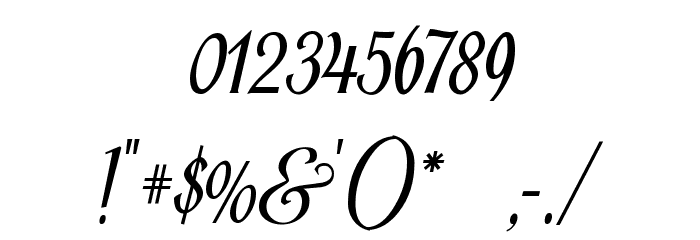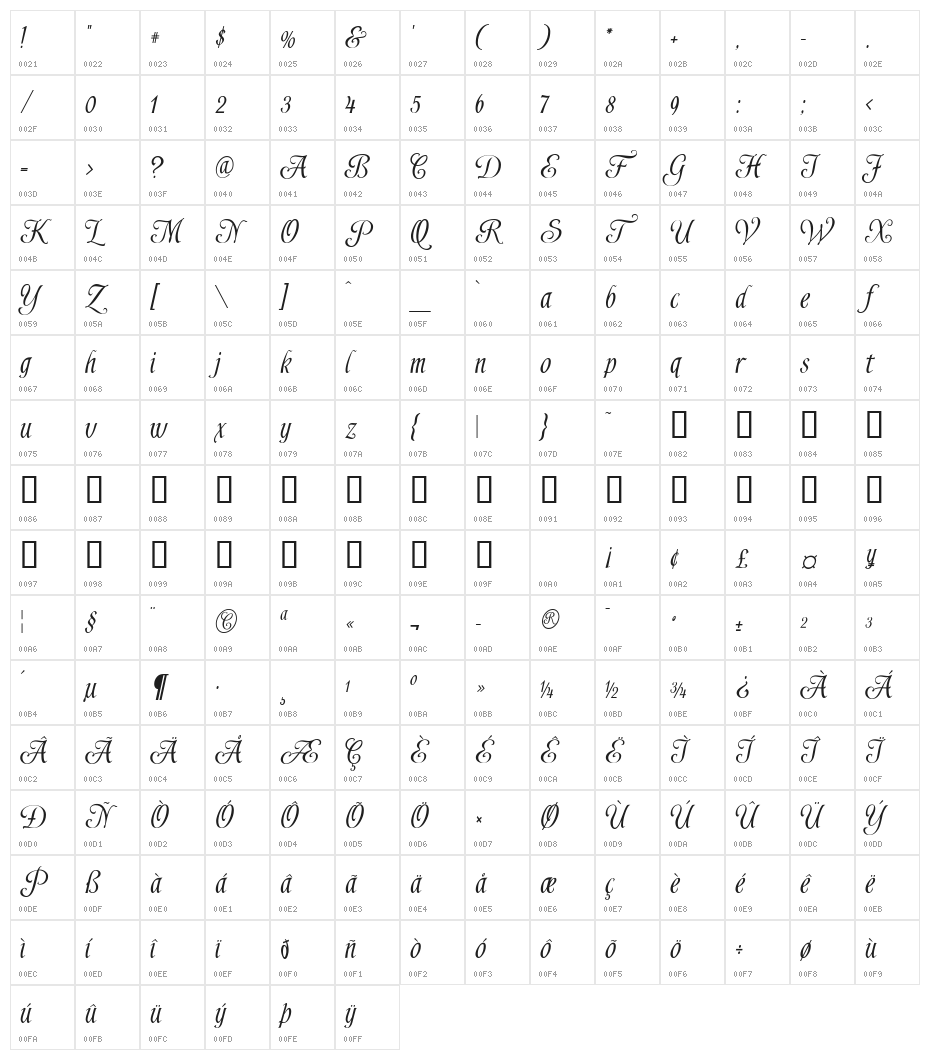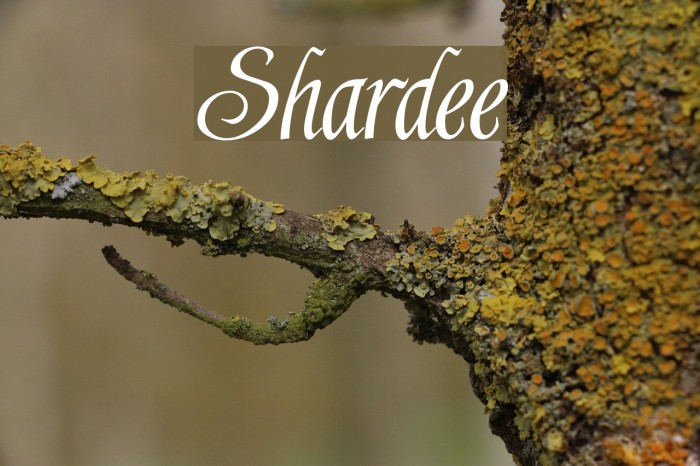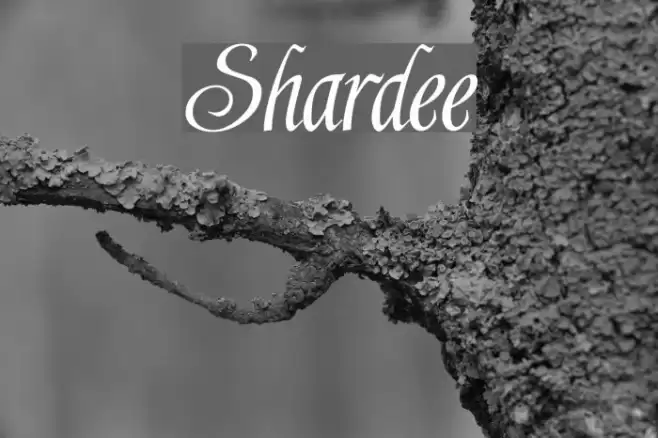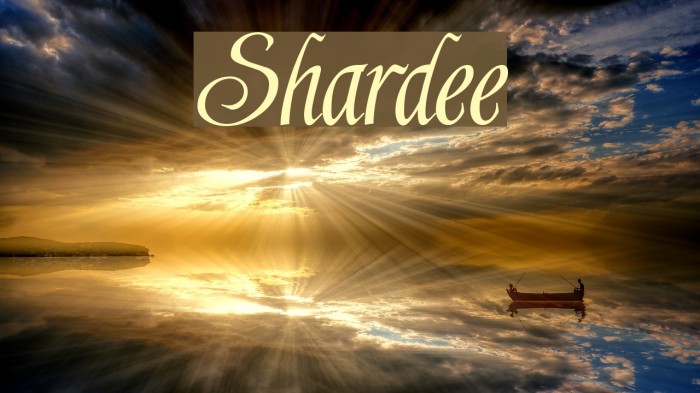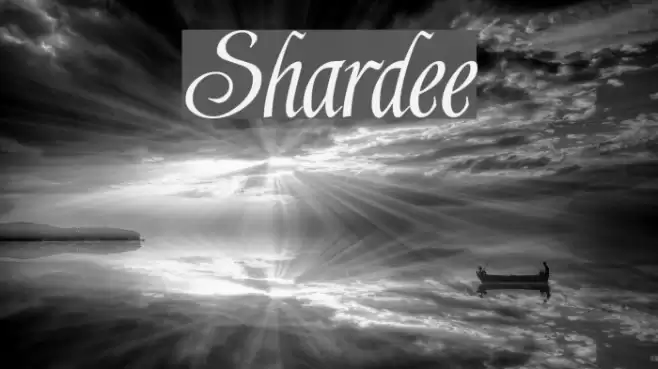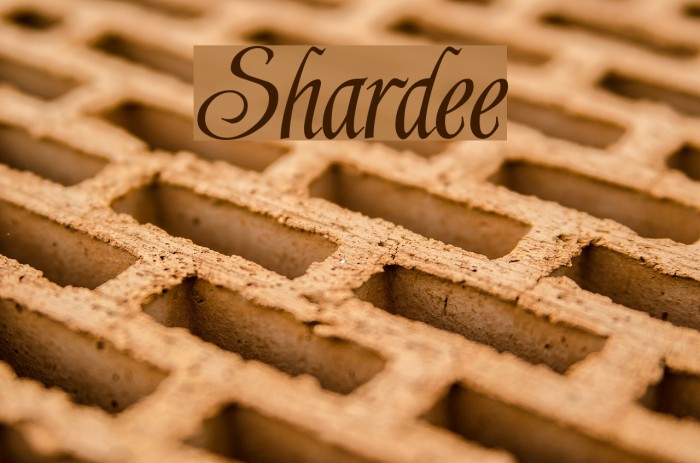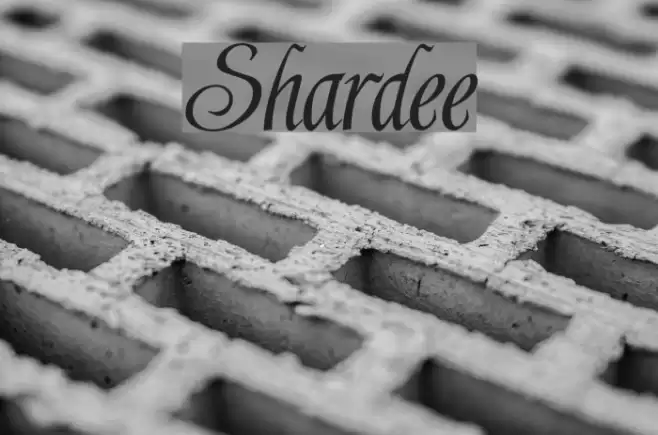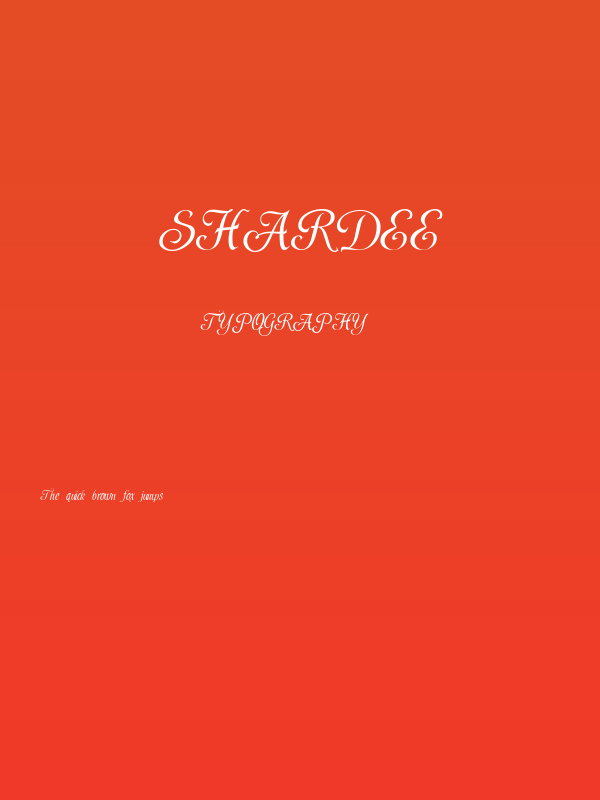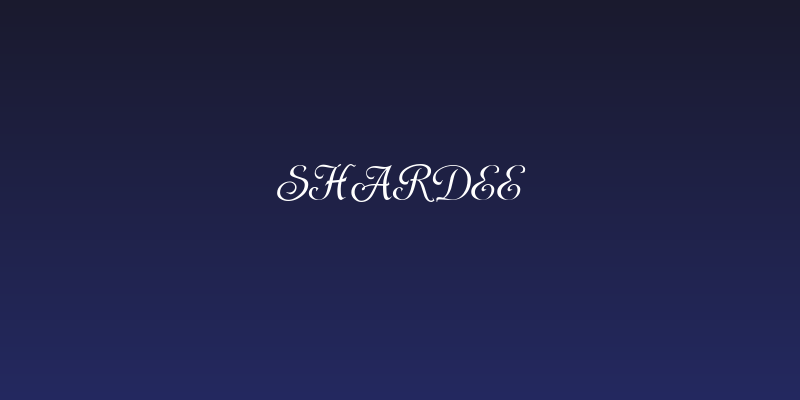
Shardee Font
Shardee Description
This elegant script font features a flowing, cursive style with intricate swashes and flourishes. The uppercase letters are particularly ornate, with sweeping curves and loops that give a sense of movement and grace. The lowercase letters maintain a consistent style, with smooth connections between characters, enhancing readability while retaining a decorative flair. The numerals are well-integrated, matching the overall aesthetic with subtle curves. Special characters are thoughtfully designed, complementing the font's sophisticated appearance. This font is perfect for projects that require a touch of elegance and sophistication.
| Use Case | Headlines, Invitations, Branding |
| Proposed Projects | Ideal for wedding invitations, elegant branding, luxury product packaging, and decorative headings. |